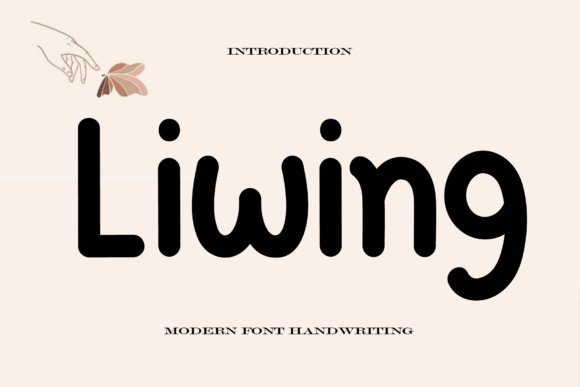
In this digital age, uniqueness and creativity reign supreme. Liwing Font, a striking handwritten script, offers a refreshing take on self-expression, granting you the power to make a remarkable impact in your design endeavors.
Unleash your individuality with Liwing Font, meticulously crafted by RR Studio, renowned for their mastery in font design. Dive into a world of limitless possibilities, where creativity knows no bounds and your ideas flourish.
Liwing Font's enchanting allure stems from its organic flow, echoing the spontaneity of freehand calligraphy. Its carefully crafted characters exude a captivating charm, inviting your audience to embark on a journey of visual delight.
Indulge in the versatility of Liwing Font, effortlessly adapting to a myriad of design projects. Whether you seek to create captivating logotypes, commanding headlines, or distinctive corporate identities, Liwing Font rises to the occasion.
Express your passion for fashion through apparel designs adorned with Liwing Font. Let your brand identity shine, capturing the essence of your unique style. Craft posters that ignite imagination, movie titles that resonate, and game interfaces that enthrall.
Transform your magazines and books into captivating visual feasts, captivating readers from the very first page. Liwing Font breathes life into comics and cartoons, adding a touch of whimsy and charm that captivates audiences of all ages.
Harness the power of Liwing Font to elevate your digital presence. Design websites that exude creativity and engage visitors with an unforgettable experience. Elevate your YouTube and Instagram content, captivating your audience with visually stunning visuals that leave a lasting impression.
Liwing Font stands as more than just a font; it's an open invitation to unleash your creative spirit. Embrace the opportunity to redefine boundaries, captivate hearts, and leave an enduring legacy through your remarkable designs.